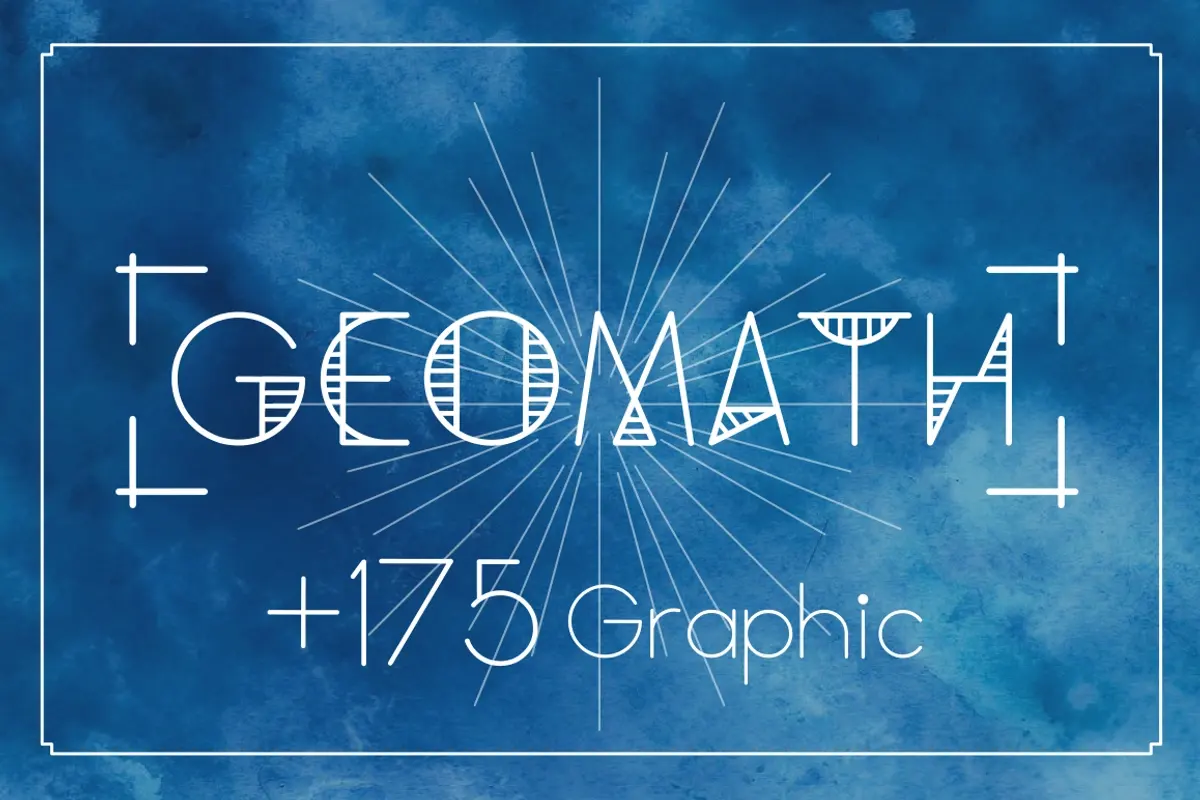
GeoMath Font Free Download is a creative geometric display typeface that comes bundled with 175 unique graphic elements — perfect for modern design enthusiasts. Inspired by clean lines and mathematical precision, GeoMath is ideal for branding, posters, infographics, logos, and cutting-edge digital content.
The font’s minimalist yet bold structure pairs beautifully with the included vector graphics, allowing designers to build entire design systems with consistency and flair. From tech-inspired visuals to abstract layouts, GeoMath offers flexibility and originality in every curve. GeoMath Font Free Download gives you the freedom to experiment with both the typeface and graphic assets for personal use before purchasing a commercial license.
Unlock your creative potential with GeoMath — a smart, stylish font and graphic bundle built for innovation.